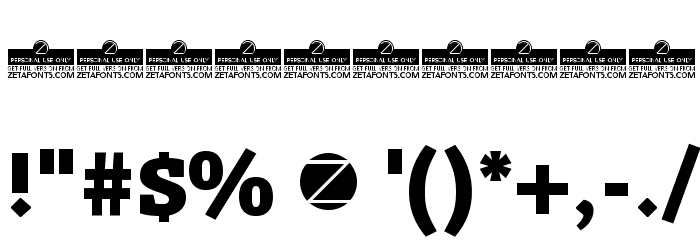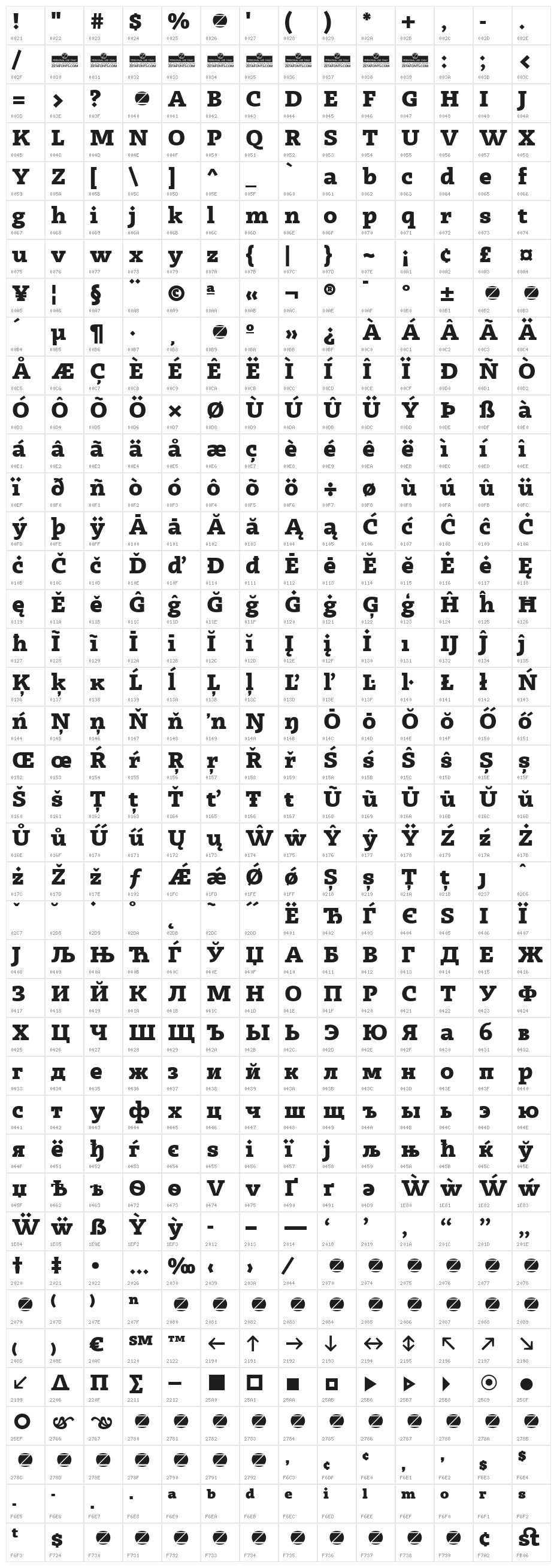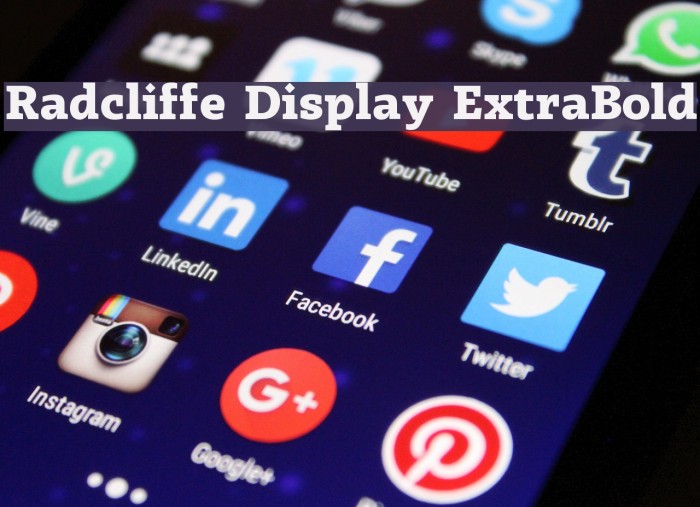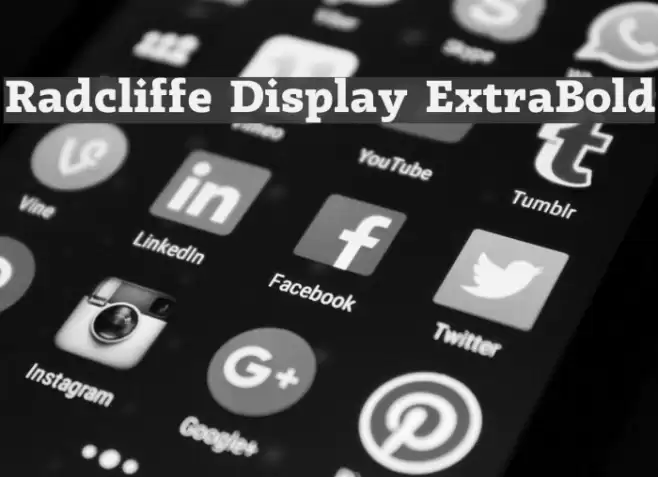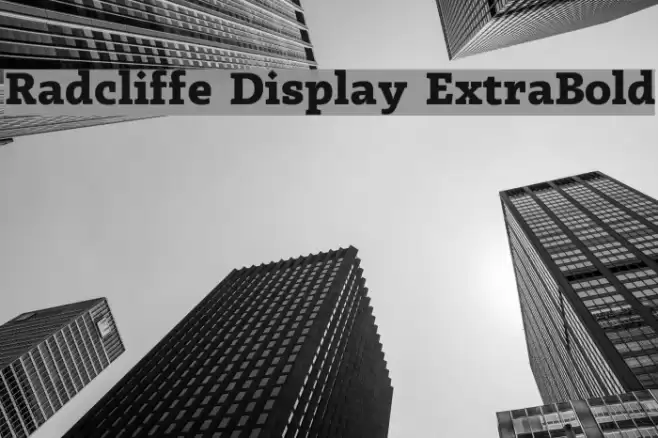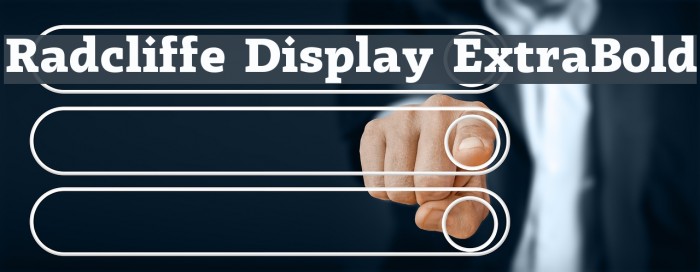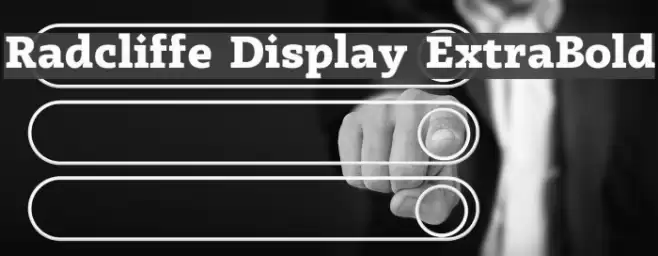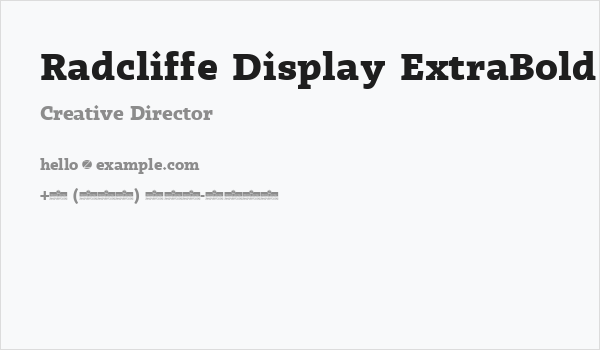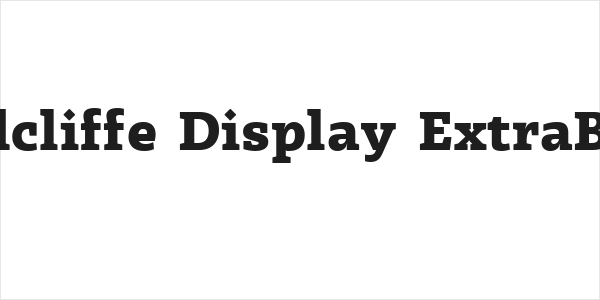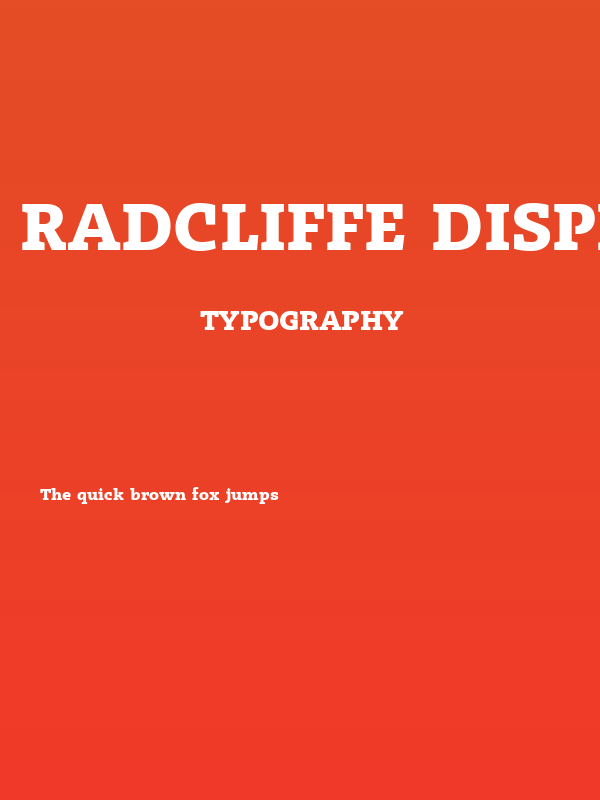
Radcliffe Display ExtraBold Font
Radcliffe Display ExtraBold Description
This font features a bold and commanding presence with its extra-thick strokes and strong serifs. The uppercase letters are robust and authoritative, while the lowercase letters maintain a consistent weight, offering a harmonious balance. The overall design is characterized by its slab serif style, which provides a sense of stability and confidence. The numerals are clear and legible, making them suitable for various applications. Special characters are designed with the same boldness, ensuring uniformity across all glyphs. This font is ideal for projects that require a strong visual impact.
| Proposed Projects | Ideal for headlines, posters, branding, and any design requiring a bold statement. |